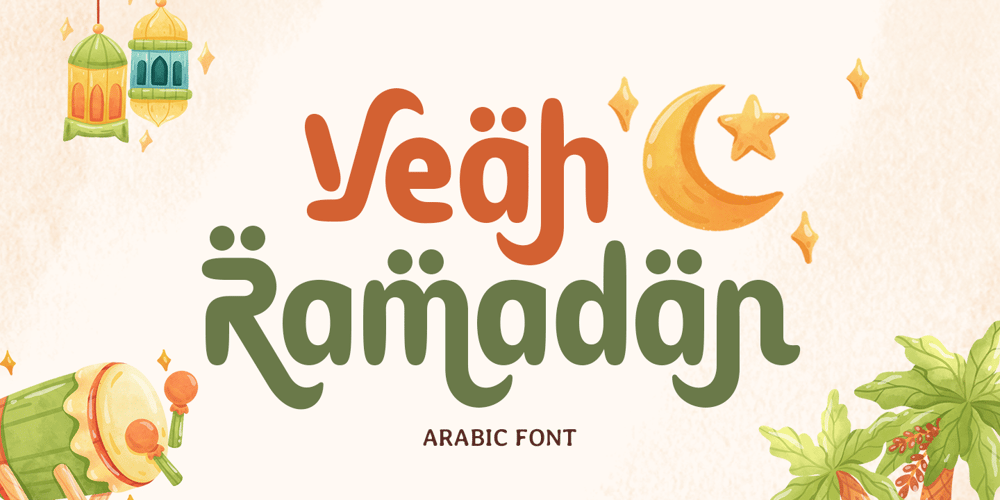
Yeah Ramadan Font Family was designed by Zamroni Hamzah and published by Sensatype Studio. Yeah Ramadan contains 1 styles and family package options. Yeah Ramadan – Arabic Font”Celebrate the spirit of Ramadan with Yeah Ramadan, a festive Arabic font combining tradition and creativity for stunning designs.”Yeah Ramadan is a delightful Arabic font designed to infuse your projects with the charm and essence of the holy month. Its intricate yet playful design makes it perfect for Ramadan and Eid-themed branding, greeting cards, posters, and social media graphics.Drawing inspiration from the beauty of Arabic calligraphy and the joyous atmosphere of Ramadan, Yeah Ramadan offers a blend of authenticity and modern flair. This font is tailored for designers seeking to create festive, welcoming, and culturally rich visuals. Whether you’re designing banners, invitations, or digital ads, Yeah Ramadan ensures your creations radiate warmth and tradition.Enrich your design toolkit with Yeah Ramadan, an Arabic font crafted to bring your festive projects to life. With its versatile features, it’s perfect for both personal and professional use.Yeah Ramadan Arabic Font Features: Festive and Authentic Arabic Typography Punctuation, Numbers, and Symbols Includes 4 format already Uppercase and Lowercase Opentype Features Multilingual Characters available for:Afrikaans, Albanian, Asu, Basque, Bemba, Bena, Breton, Chiga, Cornish, Dutch, English, Estonian, Filipino, Finnish, Friulian, Galician, German, Gusii, Indonesian, Irish, Italian, Kabuverdianu, Kalenjin, Kinyarwanda, Luo, Luxembourgish, Luyia, Machame, Makhuwa-Meetto, Makonde, Malagasy, Manx, Morisyen, North Ndebele, Nyankole, Oromo, Portuguese, Quechua, Romansh, Rombo, Rundi, Rwa, Samburu, Sango, Sangu, Scottish Gaelic, Sena, Shambala, Shona, Soga, Somali, Spanish, Swahili, Swedish, Swiss.Thank you, and may your Ramadan designs shine brightly!Hashtags:#YeahRamadanFont #ArabicTypography #FestiveArabicFont #RamadanDesign #EidTypography #IslamicCalligraphy #AuthenticTypography #PremiumDesigns #RamadanBranding #ArabicFontDesign #IslamicArt #TypographyArt #CulturalTypography #ArabicCalligraphyFont #CreativeDesigns